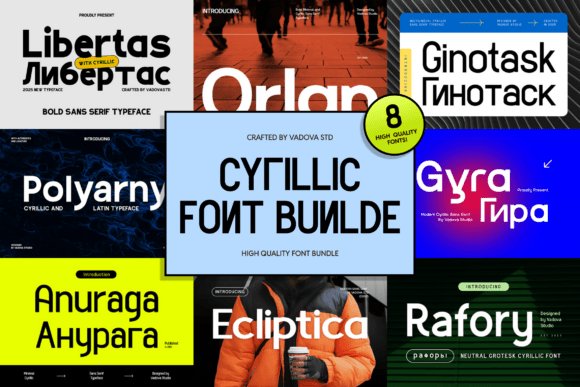
The Beauty of Cyrillic Typography
As designers, we’ve all been there – staring at a blank screen, trying to find the perfect font to convey our message. For me, it’s that moment of clarity when everything clicks into place, and I know I’ve found the perfect fit. It’s not just about aesthetics; it’s about the emotions and connections we create with our audience. And for designers working with non-Latin scripts, finding the right Cyrillic font can be a game-changer.
That’s where the Cyrillic Font Bundle comes in – a comprehensive collection of fonts designed to support modern designs that require strong, clear, and professional Cyrillic typography. With its clean letterforms and balanced proportions, this bundle offers a solid foundation for creative and practical visual communication.
Cyrillic Font Review
I recently had the chance to work with the Cyrillic Font, and I must say, it’s a solid choice for any project that requires a Cyrillic script. ✨ Here are some of its strengths:
- Legibility: The font is well-designed and easy to read, even at smaller font sizes.
- Flexibility: It comes in a range of weights and styles, making it suitable for various design applications.
However, as with any font, there are some limitations to consider. ⚠️ Here are a few areas where the Cyrillic Font falls short:
- Lack of bold italics: While the font has a range of weights, it’s missing bold italic styles, which can be a bit restrictive.
- Limited language support: Although the font covers the Cyrillic script, it may not be compatible with some languages that use extended Cyrillic characters.
Overall, the Cyrillic Font is a reliable choice for any project that requires a clear and readable Cyrillic script. While it may not be perfect, its strengths outweigh its limitations, making it a solid addition to any designer’s toolkit.
Cyrillic fonts are commonly used for:
- Designing materials for Russian or Ukrainian speaking audiences
- Creating multilingual documents or presentations
- Adding a touch of Eastern European flair to your designs
Alternatives to Cyrillic Font for Designers
1. Open Sans Cyrillic
Open Sans Cyrillic is a free, open-source font designed by Steve Matteson. It is a versatile sans-serif font suitable for body text and headlines. Use it when you need a clean and modern look. Open Sans Cyrillic is similar to Cyrillic Font in terms of its clean and minimalist design, but it has a more contemporary feel and is optimized for digital use.